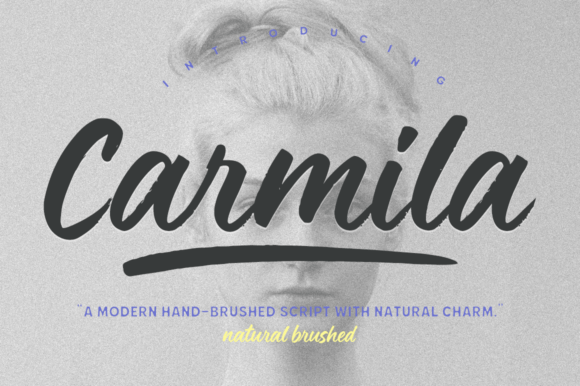
Discover the Magic of Handwritten Typography
As a designer, there’s nothing quite like the thrill of bringing a new project to life. You sit at your desk, pen in hand, and let the ideas flow. But, let’s be honest, sometimes those ideas can be a bit… rough around the edges. That’s where a great font comes in – one that can elevate your design and make it truly shine. Enter the Carmila Brush Font, a modern script font that’s about to become your new best friend.
This stylish font boasts smooth, confident strokes and a clean, handwritten flow that’s perfect for creating professional-looking designs with a personal touch. With its dynamic brush texture and natural rhythm, the Carmila Brush Font is ideal for branding, advertising, and editorial design. Whether you’re working on a digital or print project, this font delivers clarity and character in every layout.
Carmilla Brush Font Key Features
- Font Size: The font comes in 4 different sizes: 400, 500, 600, and 700, allowing for varying levels of boldness and expressiveness.
- Unique Characteristics: Carmilla Brush Font features a distressed, hand-drawn design with subtle imperfections, giving it a unique and artistic feel.
- Resolution: The font is designed to be high-resolution, suitable for use in print materials and digital applications at 300 DPI or higher.
- Script Support: The font includes a wide range of language support, including Latin, Cyrillic, and Greek scripts, making it suitable for use in various cultural contexts.
- Stylistic Sets: The font includes 3 stylistic sets, offering different variations of the font’s design, allowing for added flexibility and creativity in typography.
Carmila Brush Font Review
I’ve had the chance to work with the Carmila Brush Font, and I must say, it’s a mixed bag. Here’s my honest take.
- Unique and artistic style: The Carmila Brush Font has a distinct, hand-drawn feel that sets it apart from more traditional fonts.
- Expressive and emotive: The font’s brushstrokes and irregularities give it a sense of personality and emotion, making it perfect for creative projects.
- Good for display text: The font’s large x-height and distinctive letterforms make it well-suited for headlines and titles.
- Readability issues: At smaller font sizes, the Carmila Brush Font can become difficult to read due to its irregularities and lack of clarity.
- Not ideal for body text: While the font is great for display text, it’s not the best choice for large blocks of body text, as it can be tiring to read.
- Limited language support: The font may not be suitable for languages that require more precise letterforms or complex typography.
The Carmila Brush Font is a unique and expressive typeface that’s perfect for creative projects and display text. While it has its limitations, it’s a great choice for designers who want to add some personality and emotion to their work. Just be mindful of its readability issues and limited language support.
Tips for Getting the Most Out of Carmila Brush Font
Use Carmila Brush Font for creative and artistic projects, such as invitations, posters, and greeting cards.
Experiment with different font sizes, colors, and styles to create unique and eye-catching designs.
Combine Carmila Brush Font with other fonts and design elements to add depth and visual interest to your projects.
Carmila Brush Font is ideal for:
Artistic posters and prints
Personalized greeting cards and gift tags